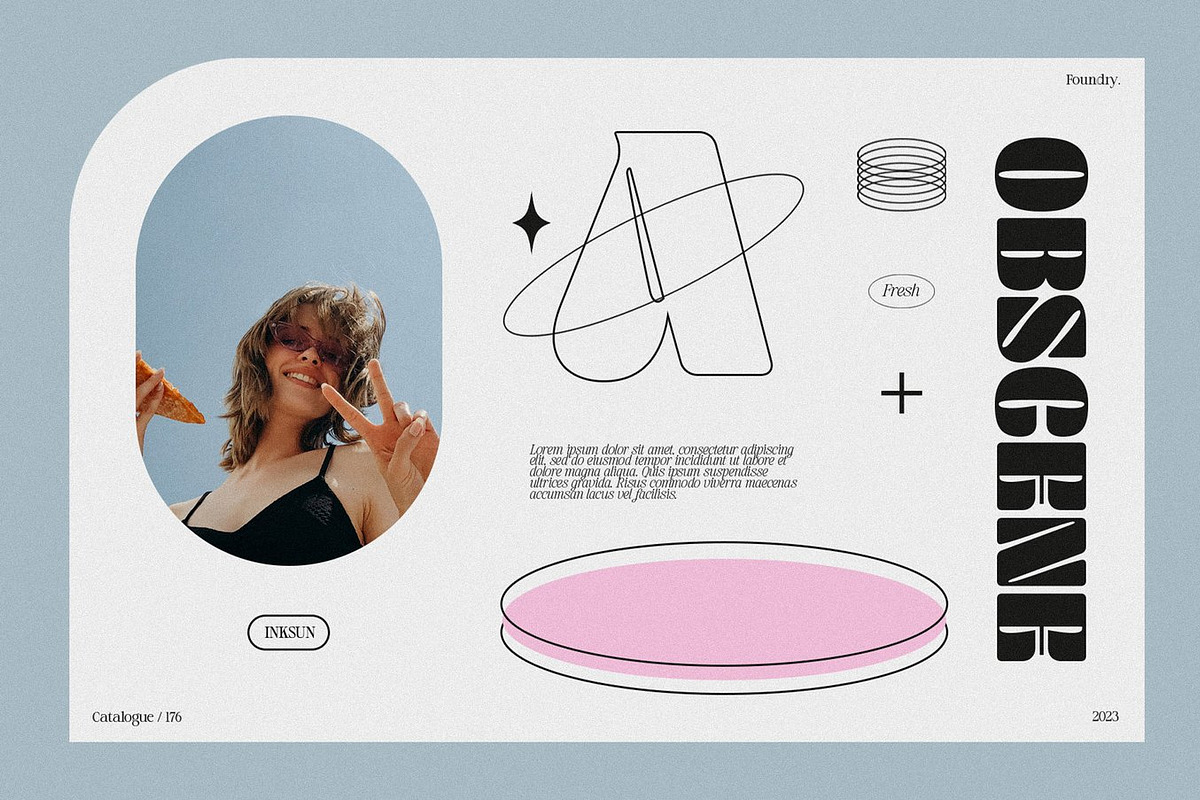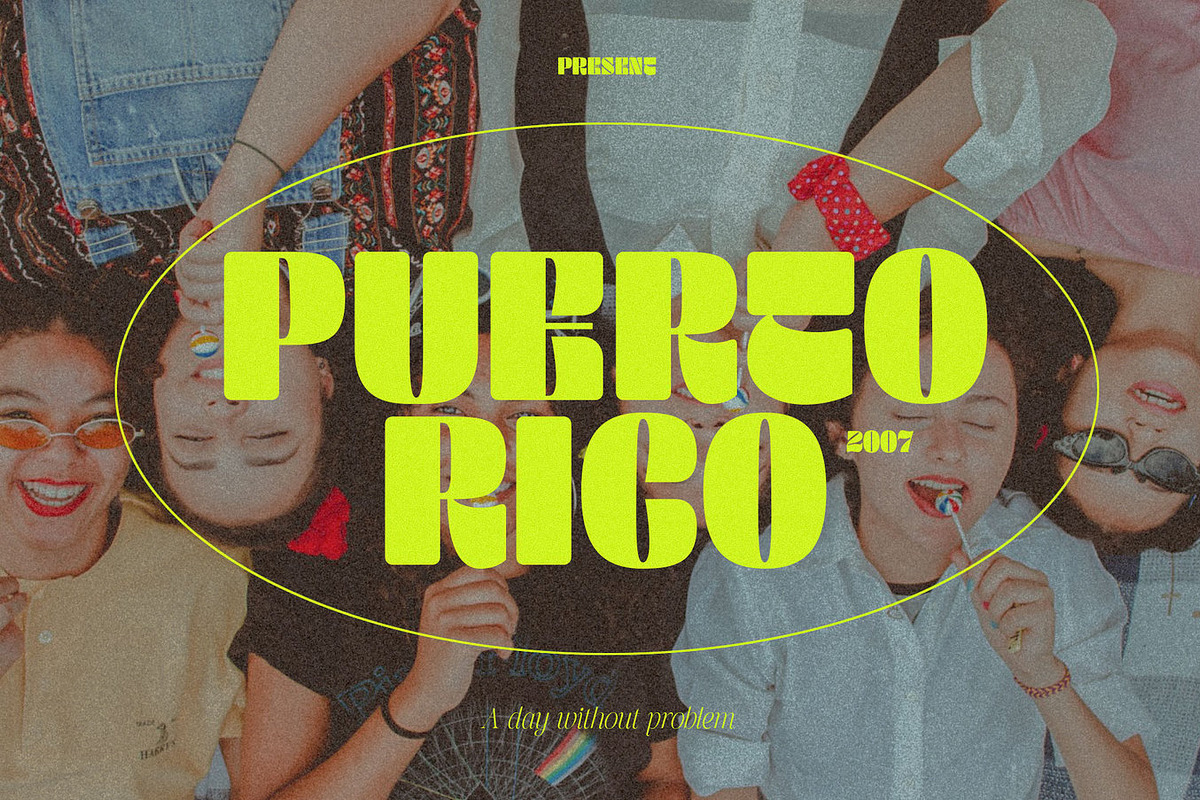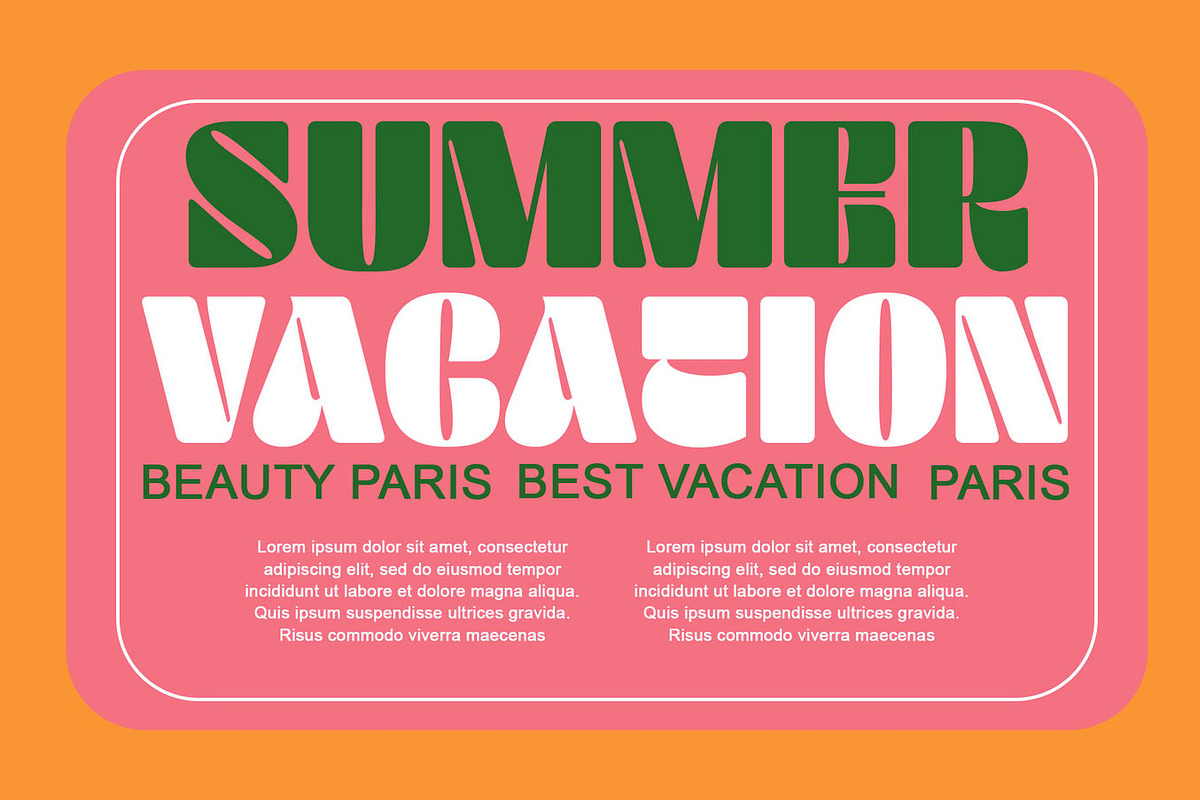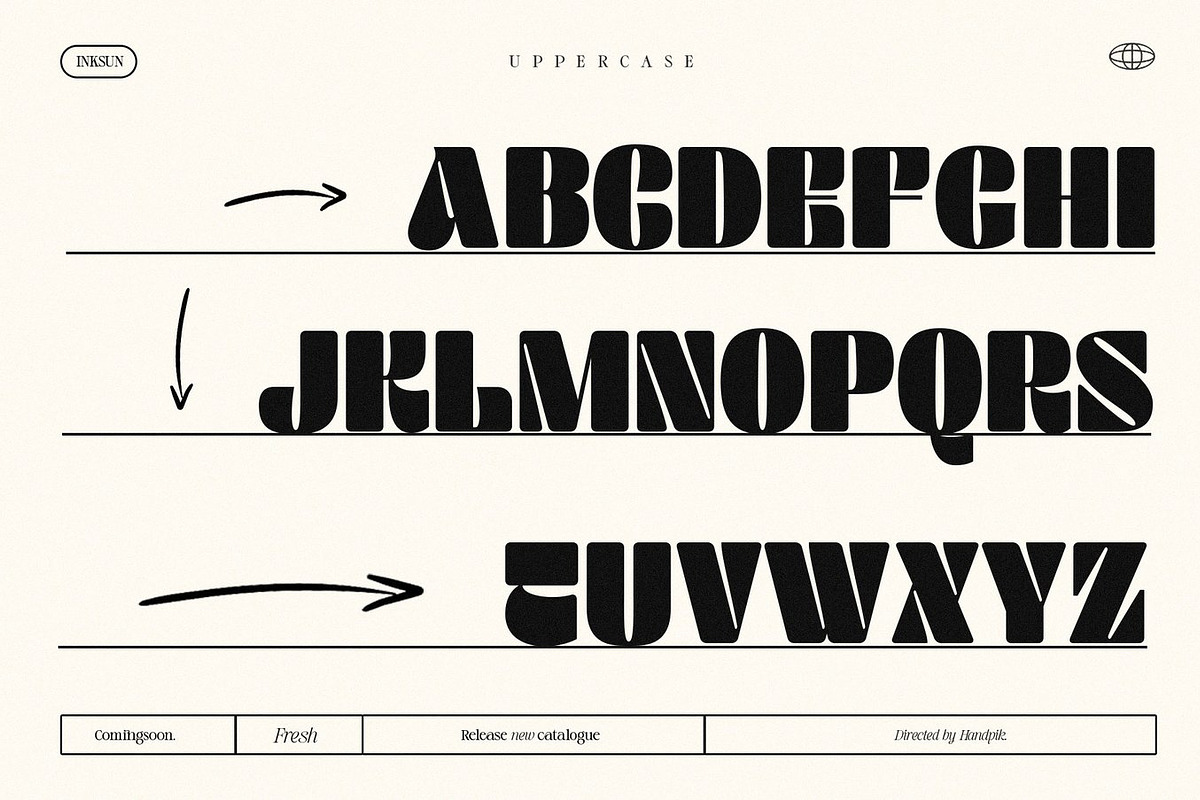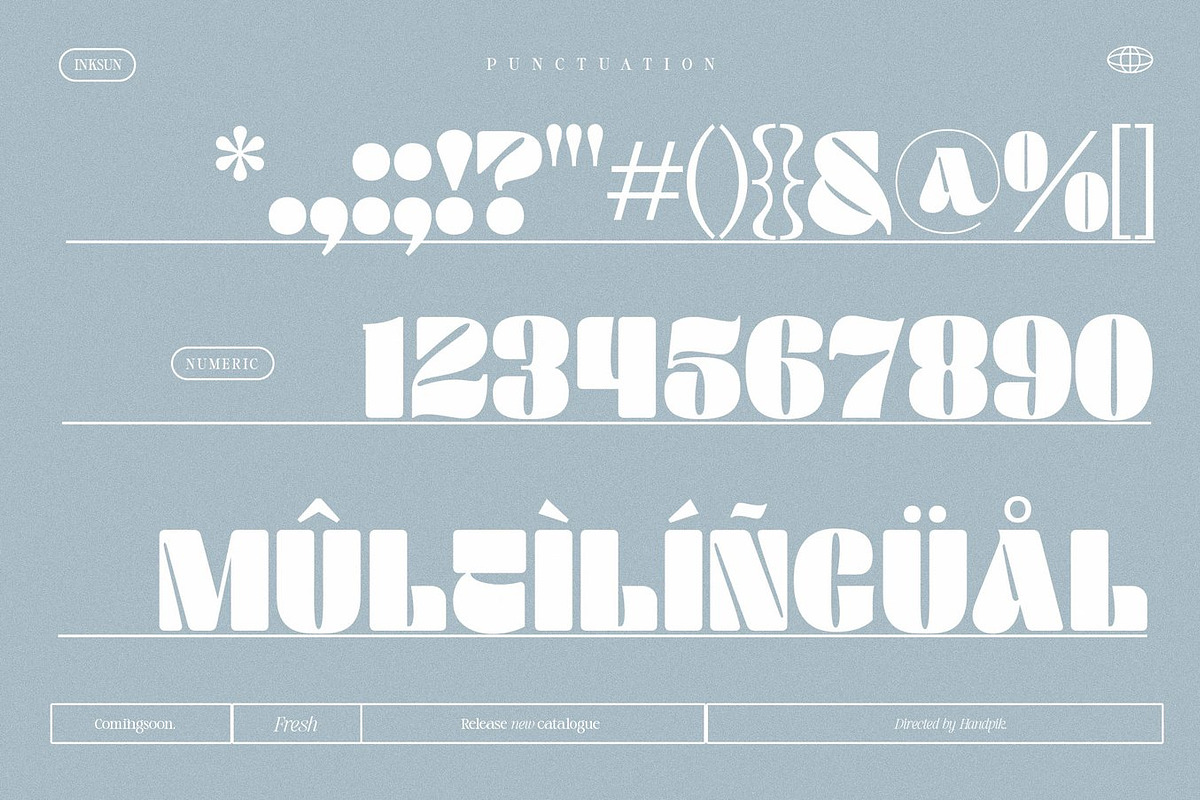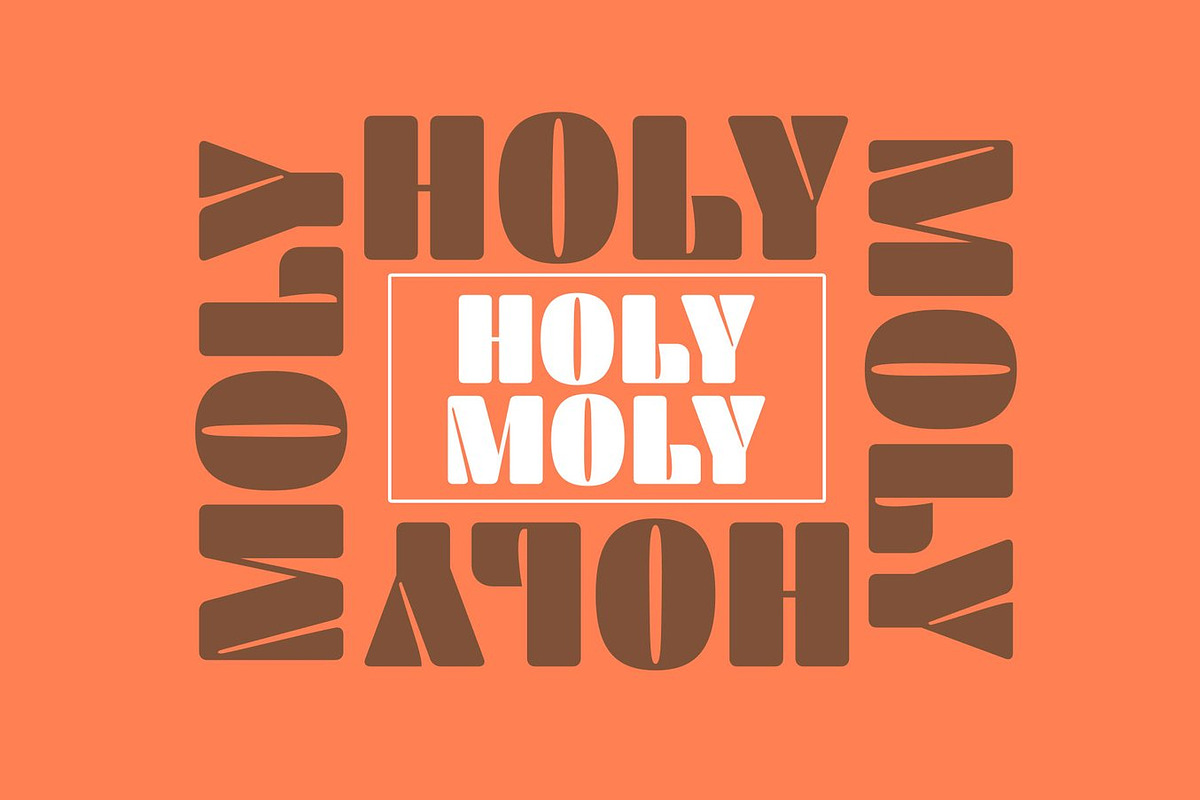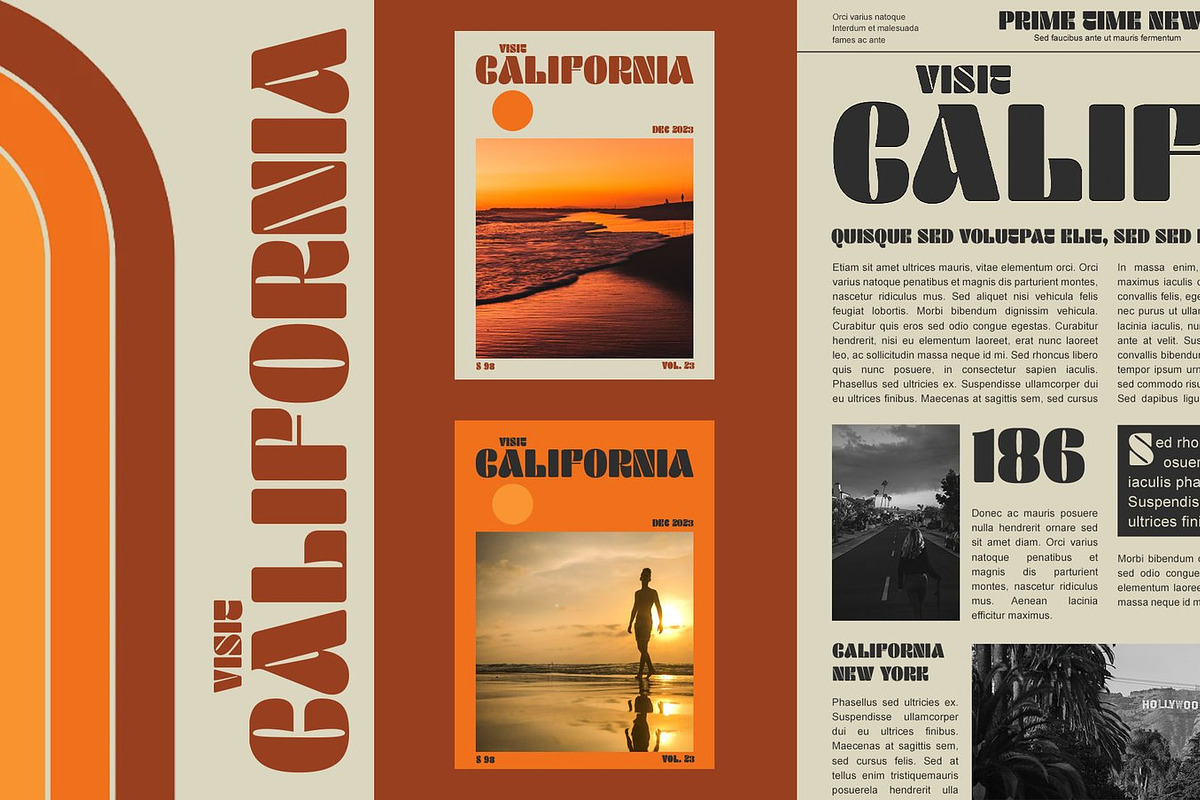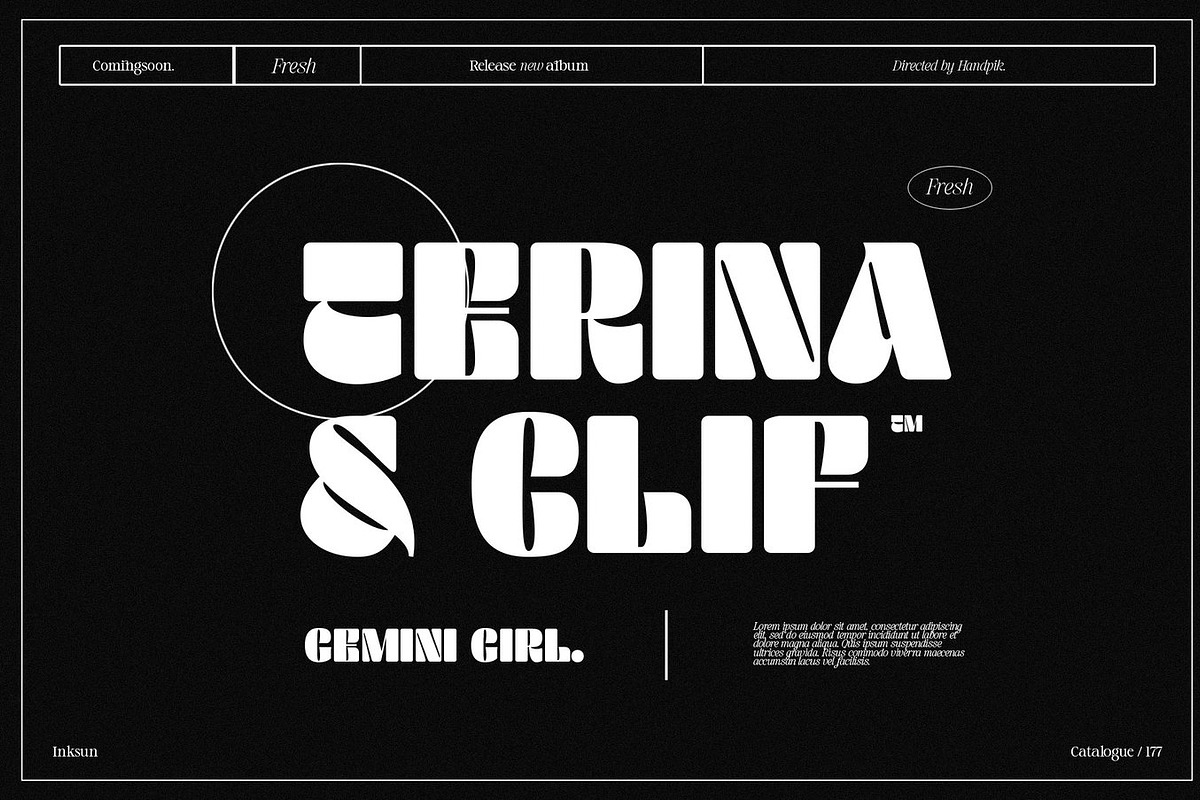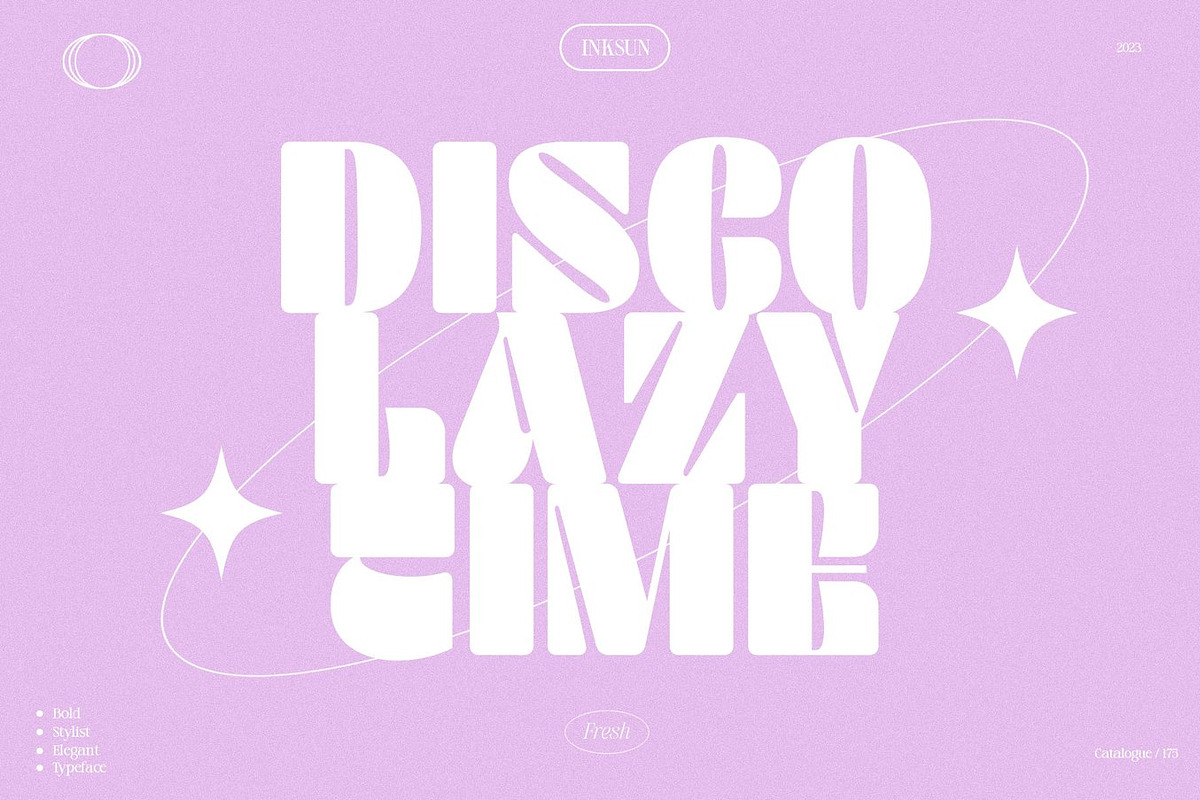
Puerto Rico Sans Serif
Puerto Rico is a stylish and expressive typeface designed to bring warmth, personality, and creative charm into your work. Inspired by a sense of freedom, creativity, and visual storytelling, Puerto Rico blends modern clarity with an inviting character that feels both professional and artistic. Its balanced letterforms and smooth flow make it a dependable choice for designers who want typography that communicates with confidence and style.
This font shines across a wide range of projects. It works beautifully for books, magazines, branding, logos, photography overlays, quotes, blog headers, posters, and advertising materials. Whether used for bold titles or supporting text, Puerto Rico maintains readability while adding a distinctive visual voice. Its versatility allows it to move effortlessly between elegant editorial layouts and eye catching promotional graphics.
Puerto Rico feels approachable, modern, and refined. It helps create designs that are memorable without being overwhelming, making it suitable for both print and digital applications. Designers can rely on its clean structure and thoughtful details to elevate creative concepts and deliver a polished final look.
Puerto Rico Font Features:
• Uppercase and lowercase characters
• Numerals and functional punctuation
• Multilingual support
• OpenType features